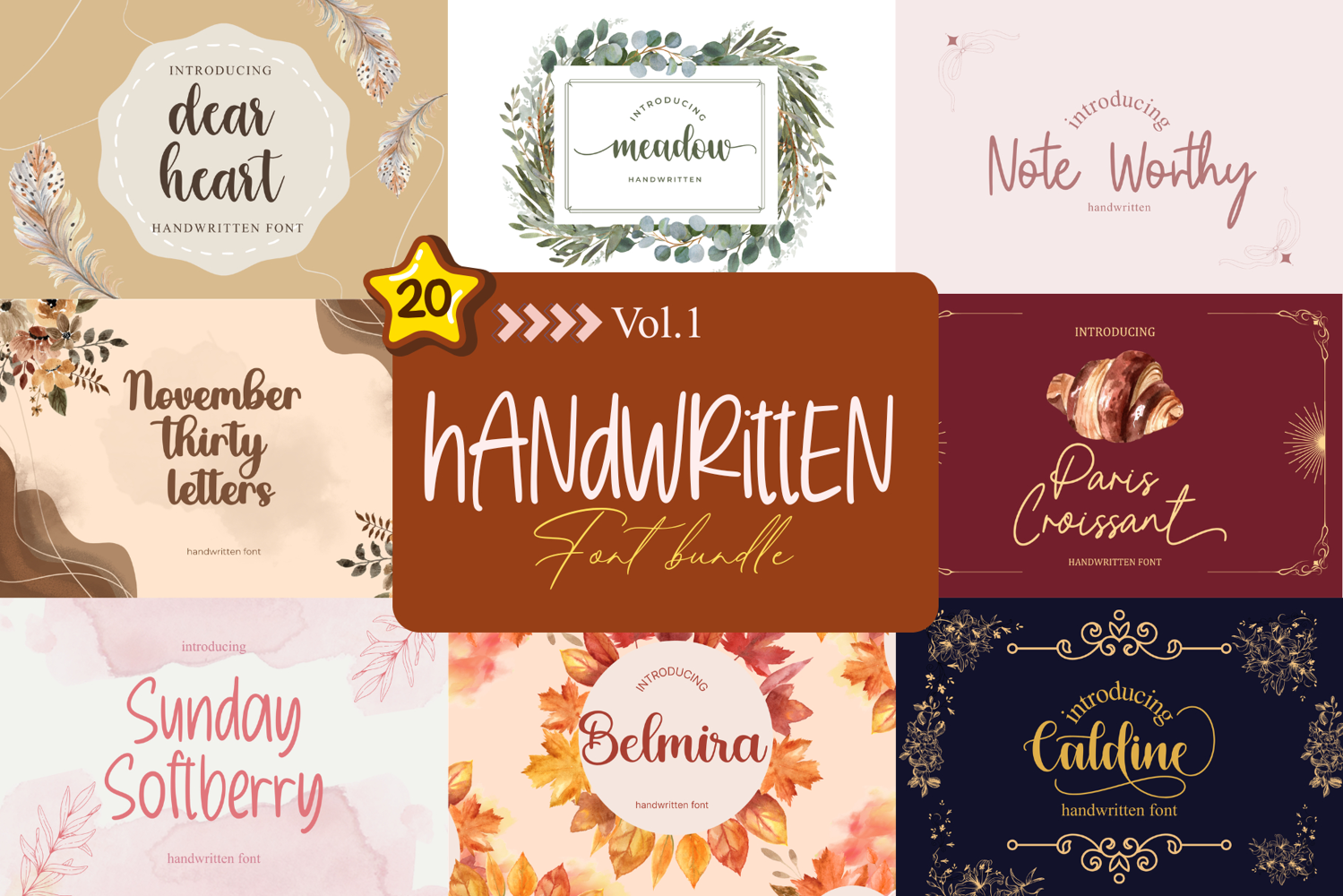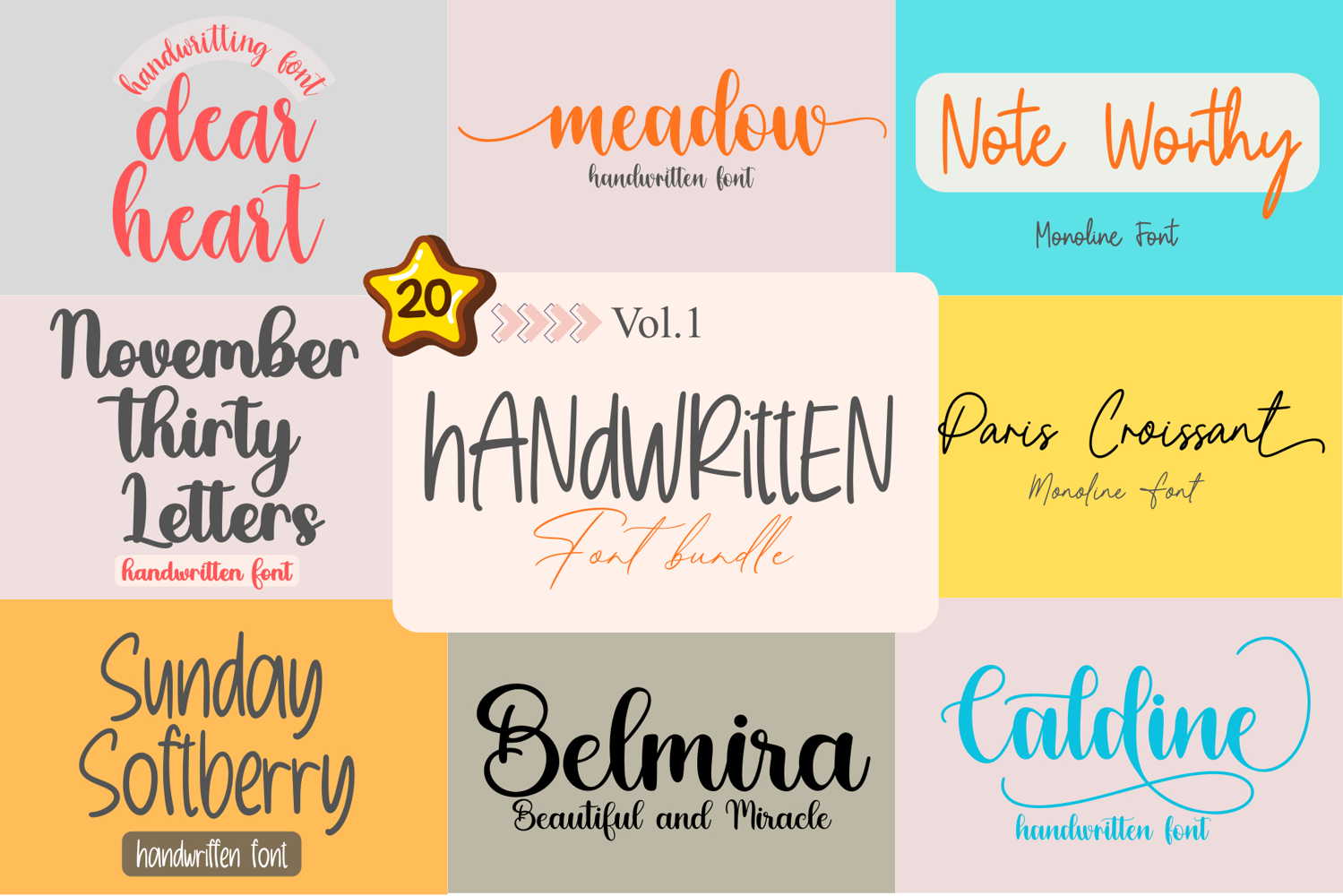
20 Bundle Fonts - HANDWRITING Vol. 1 By JG
✨ Handwritten Font Bundle – 20 Fonts Collection
Bring warmth, personality, and effortless charm to your designs with this Handwritten Font Bundle, featuring 20 carefully crafted handwritten-style fonts. Each font has its own unique character—ranging from soft and romantic to bold and expressive—making this bundle a versatile choice for creative projects of all kinds.
This collection is perfect for designers, creators, and business owners who want fonts that feel natural, organic, and human, while still looking polished and professional.
Allister Ridgeway
Auckland Handwritten
Belmira
Blindgates
Brancaster
Bright Flame
Butter Accents
Caldine
Dear Heart
Enchanted Bounty
Meadow
Note Worthy
November Thirty Letters
Paris Croissant
Pinestand
Ridgewood
Sageletter
Sunday Softberry
Take Charge
The Bellerose Typeface
Whether you’re designing something elegant, playful, or modern, this bundle gives you a wide range of handwritten styles to match your vision.
• Authentic handwritten feel
• Clean, easy-to-use letterforms
• Mix of casual, romantic, and bold styles